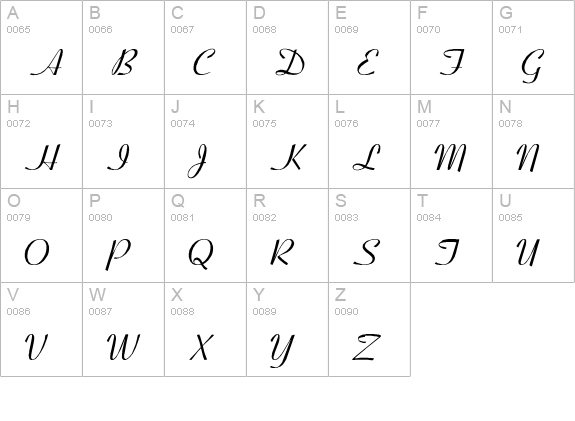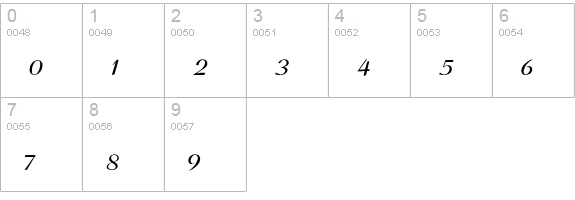
Coronet-SemiBold-Italic is a sub-bold, structured, italic variant in the Coronet typeface family \xE2\x80\x94 well suited to sub-headlines and emphasised passages.
Coronet SemiBold Italic font exudes a sense of sophistication and elegance with its bold yet slanted appearance. The sleek and stylish design of this font makes it perfect for adding a touch of modern flair to any creative project. Whether you are designing a logo, creating a poster, or crafting a website, Coronet SemiBold Italic font will make a bold statement. And the best part is, this stunning font is available for free download at FontsMarket.com. So, why wait? Elevate your designs with the distinctive charm of Coronet SemiBold Italic font today!